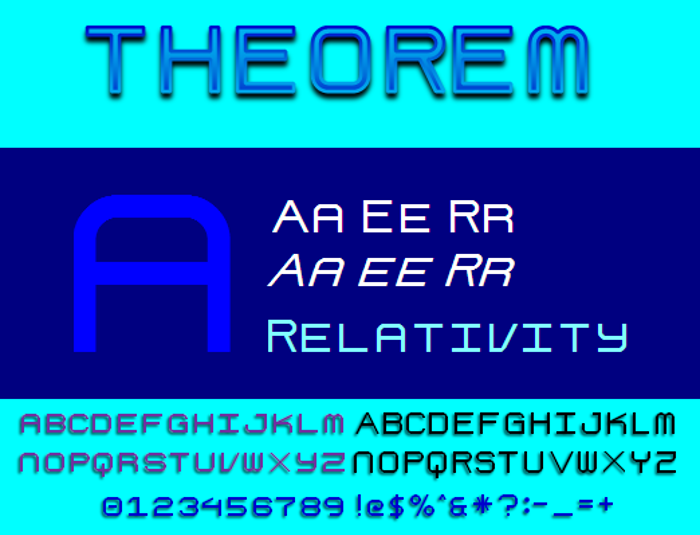
Theorem NBP Font
A smallcaps typeface designed for logos, titles, and headings. Specifically I designed it for my friend Jeff's philosophy project.
Contains design elements from Aspirin, Bank Gothic, and FF Qtype.